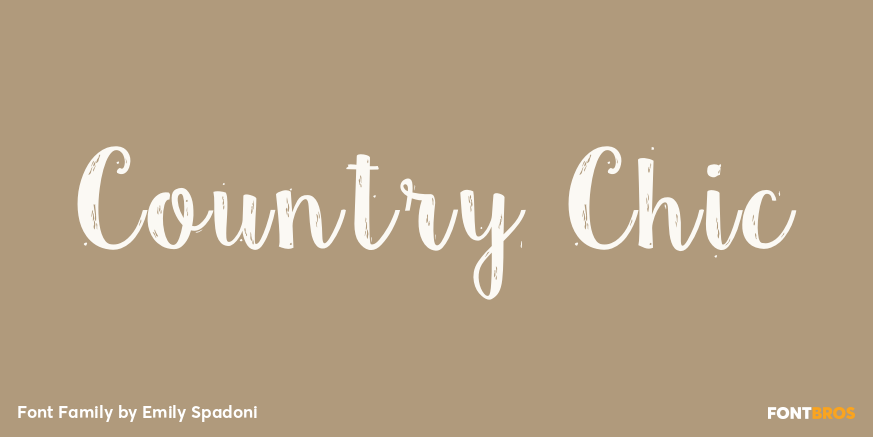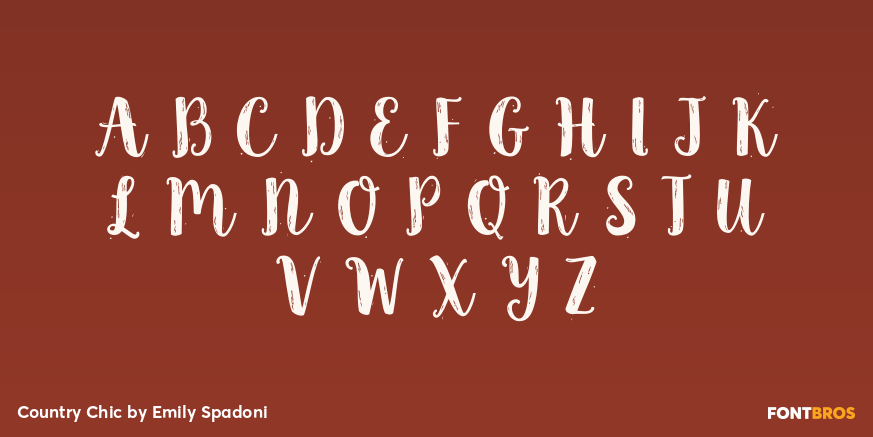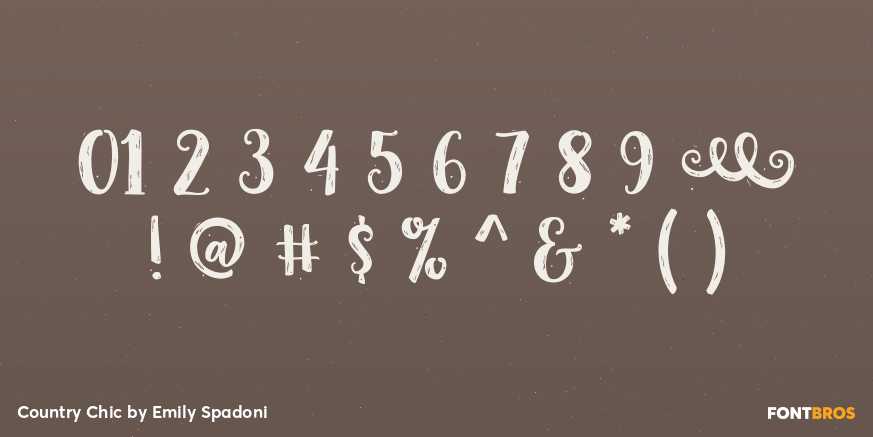
Country Chic
Font Family by Emily Spadoni
Country Chic Script is a new hand crafted modern vintage style typeface. She's chic, she's sweet, and she's a little shabby. This script doesn't miss a single detail in her sweet and shabby lines. Even her ornaments are a bit worn. As If she wasn't sweet enough - an italic version is also included! Both styles include multi-lingual glyphs.
Country Chic Italic